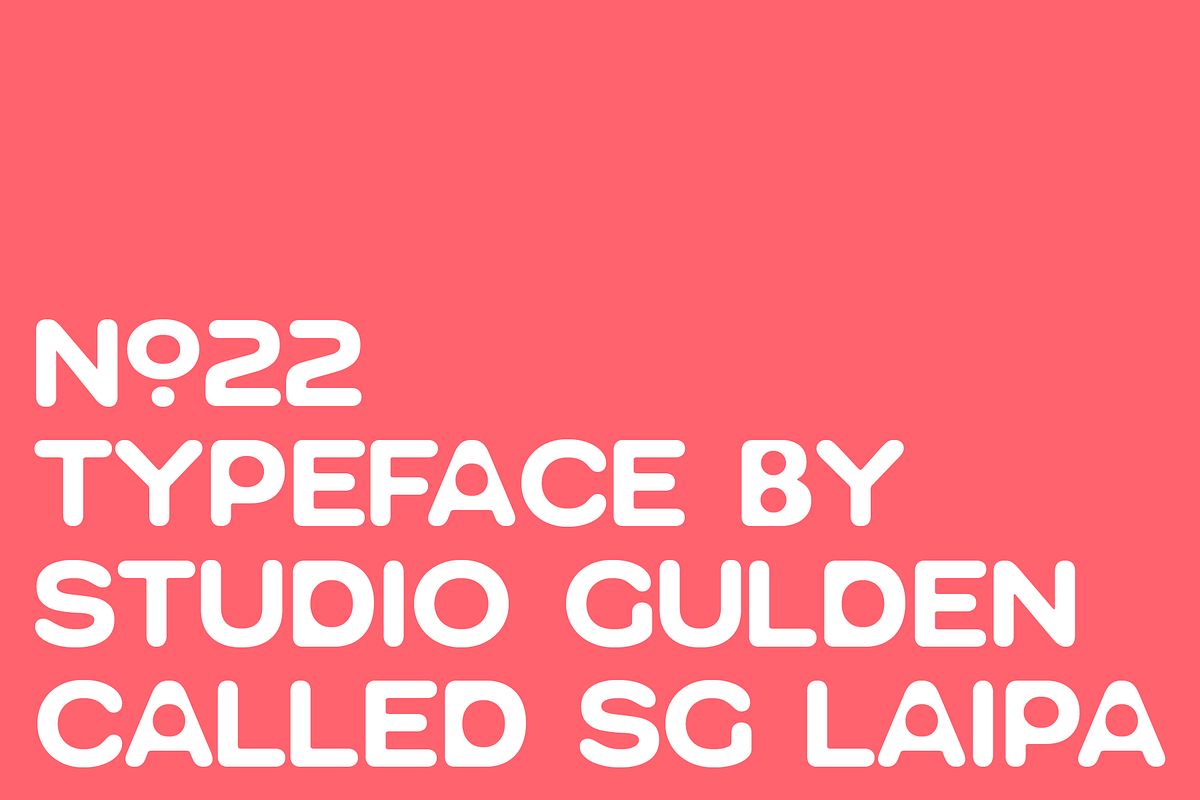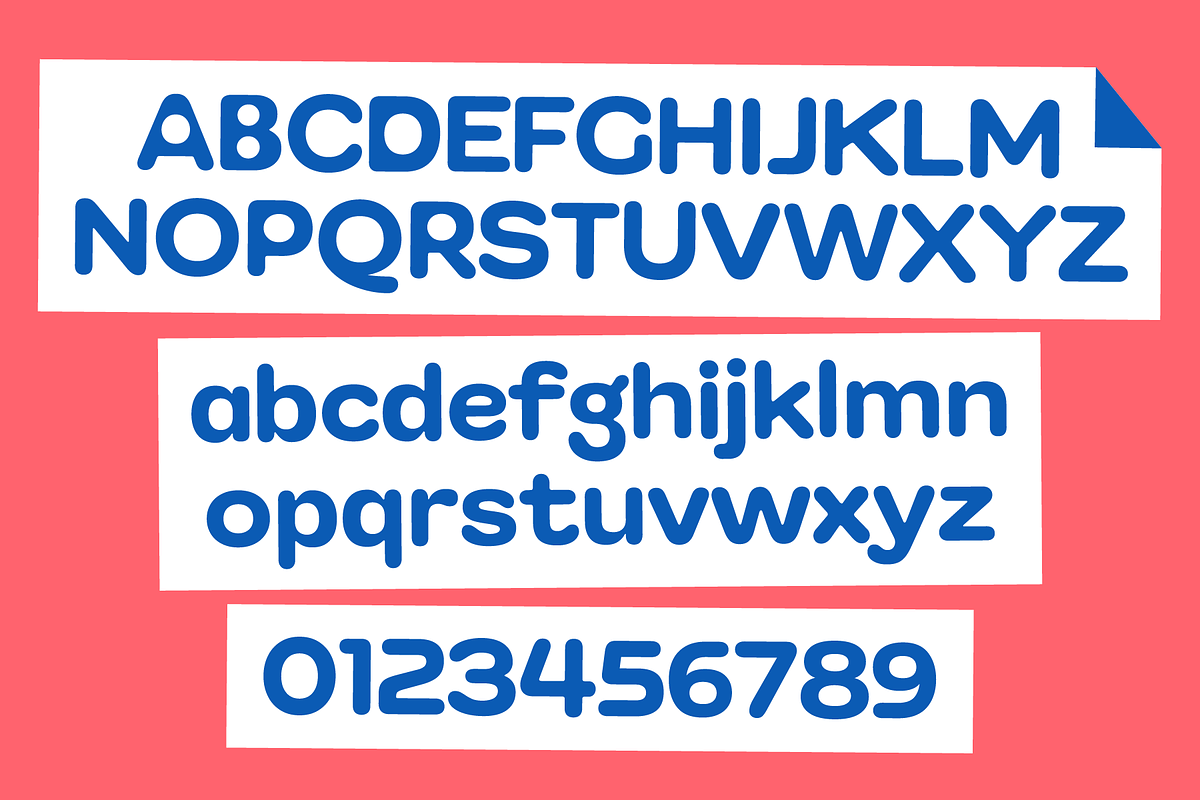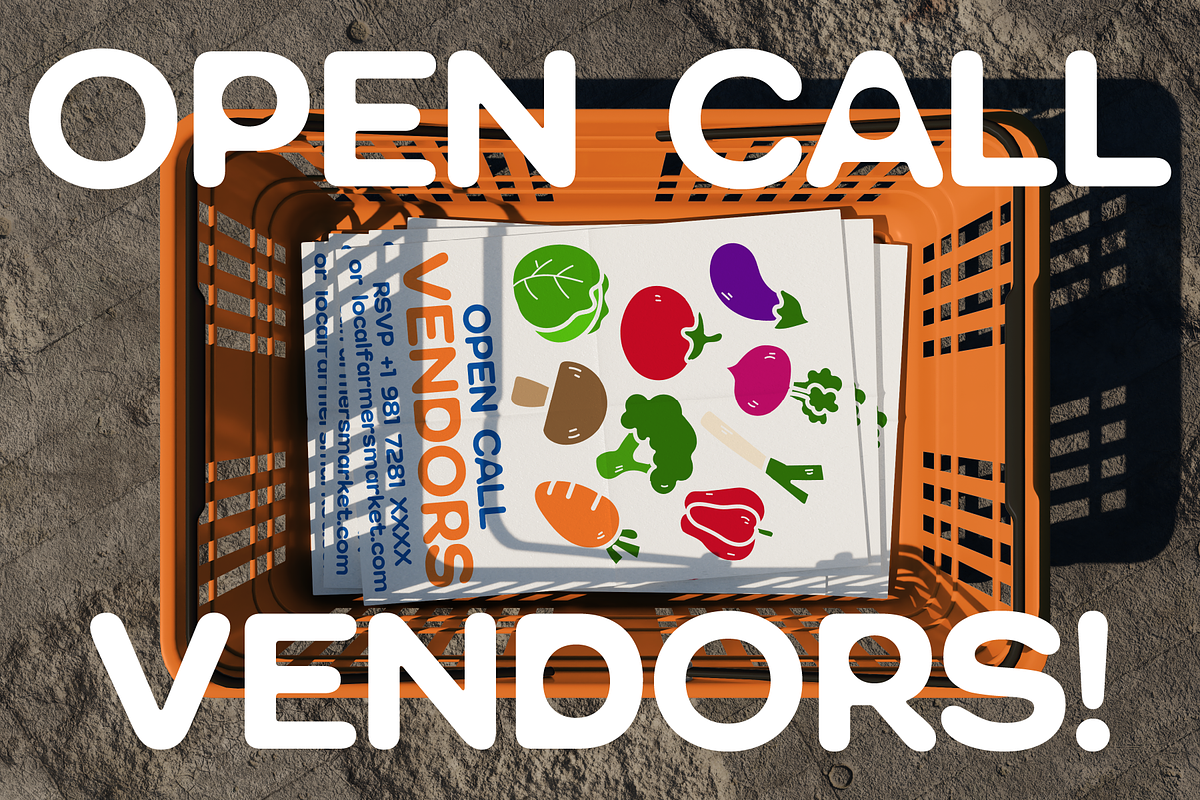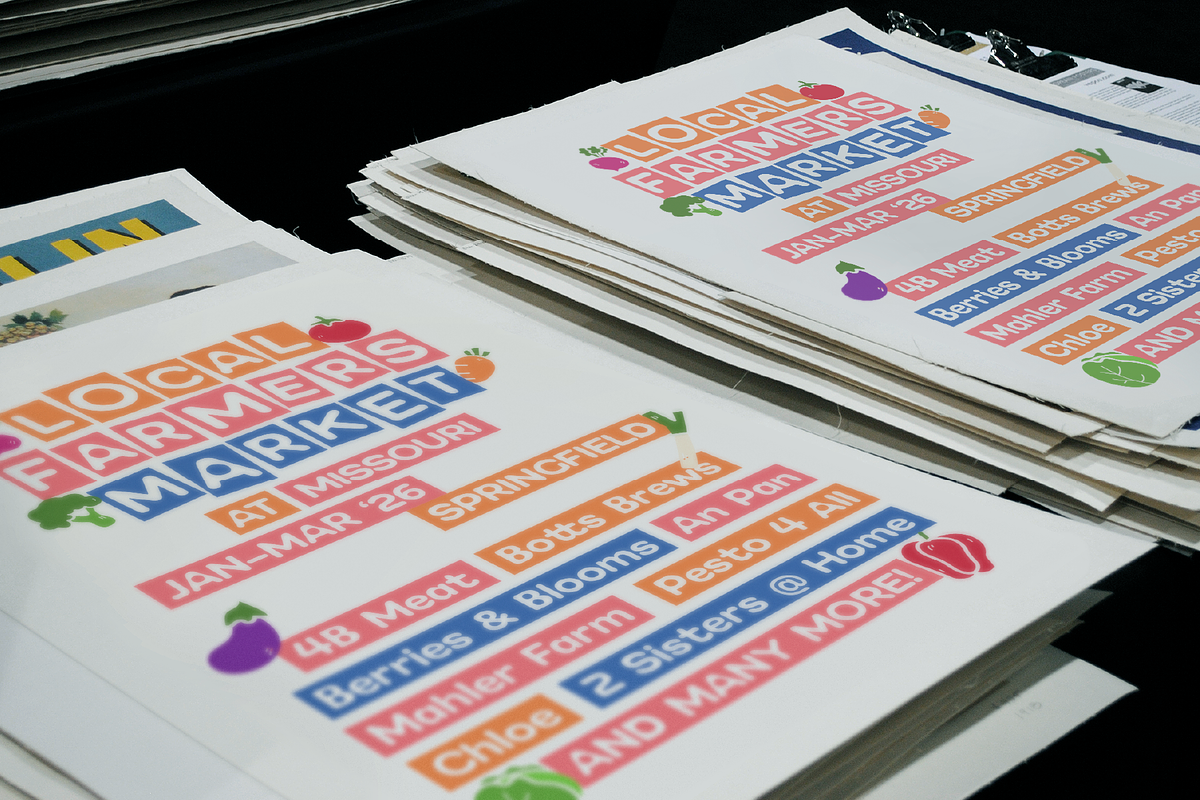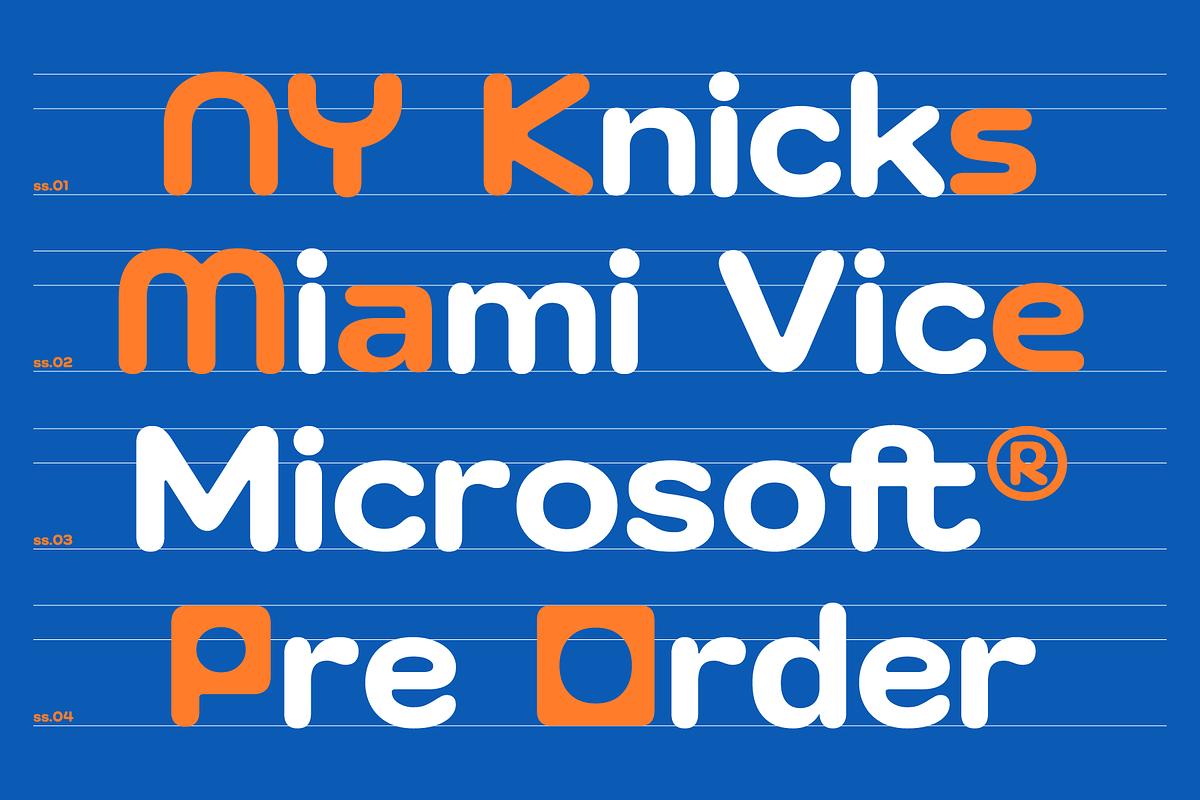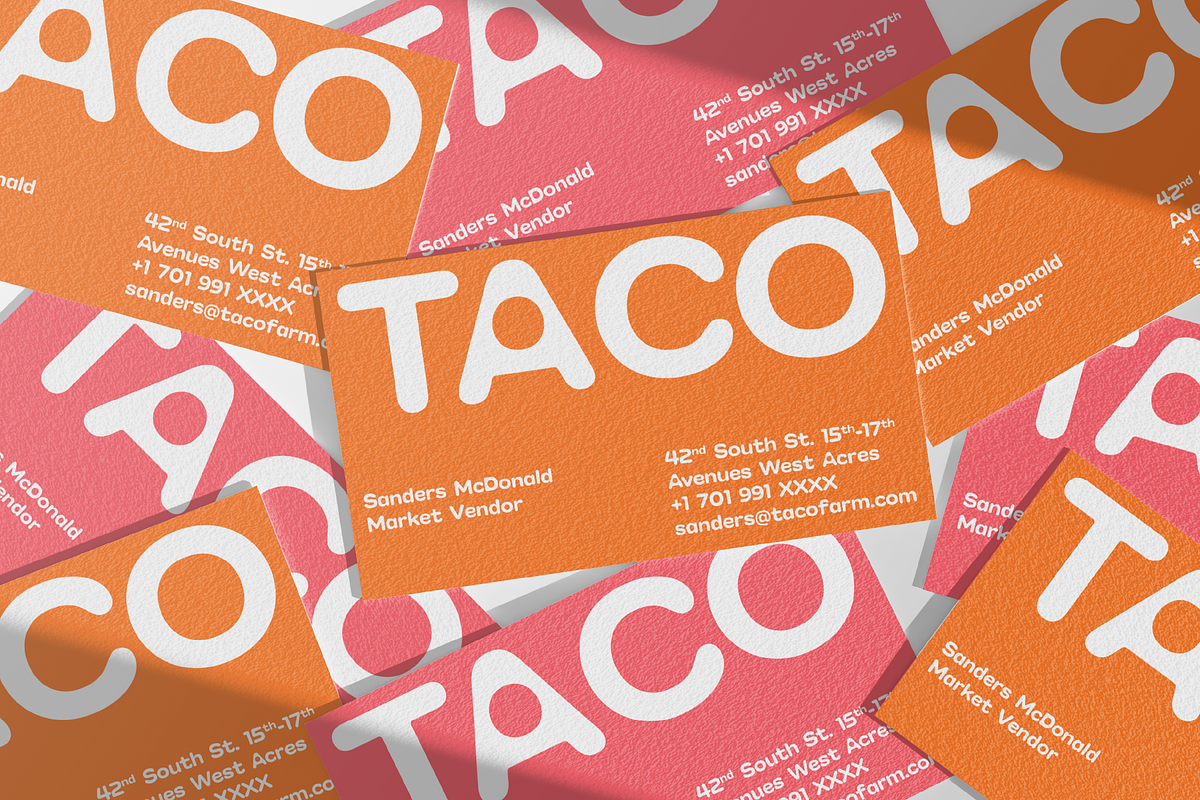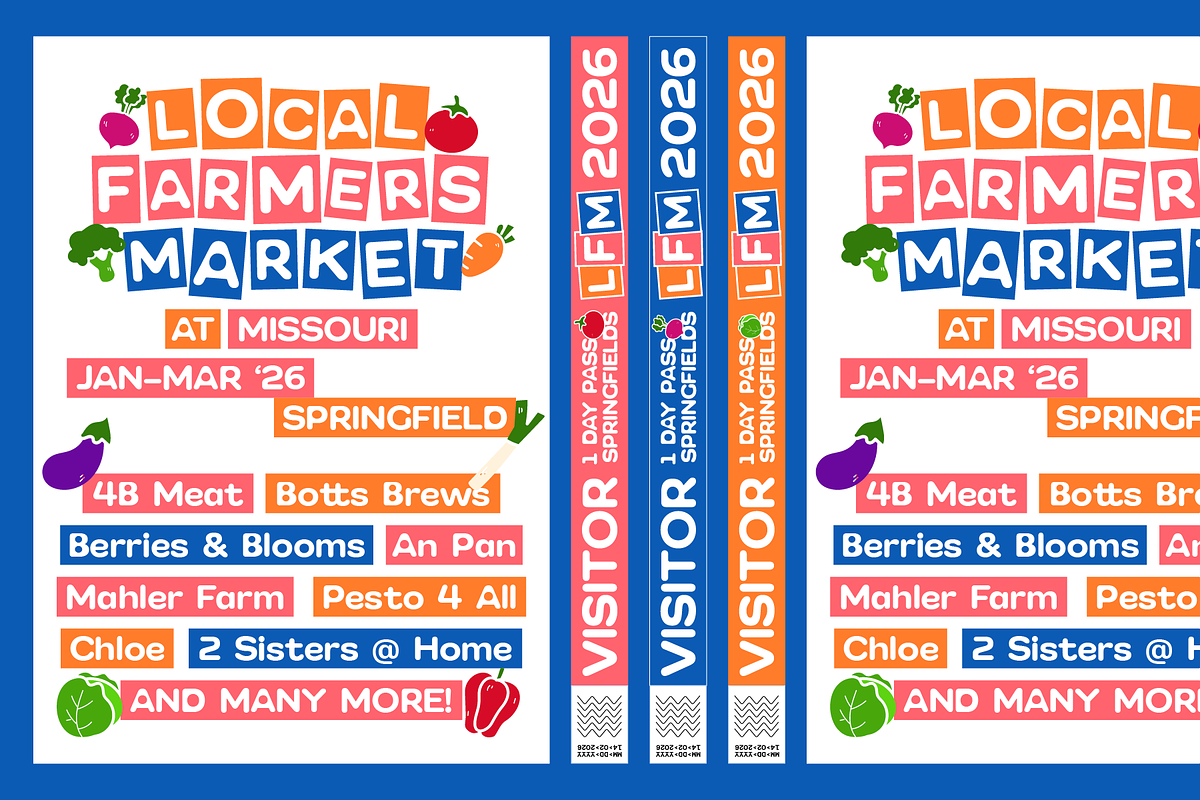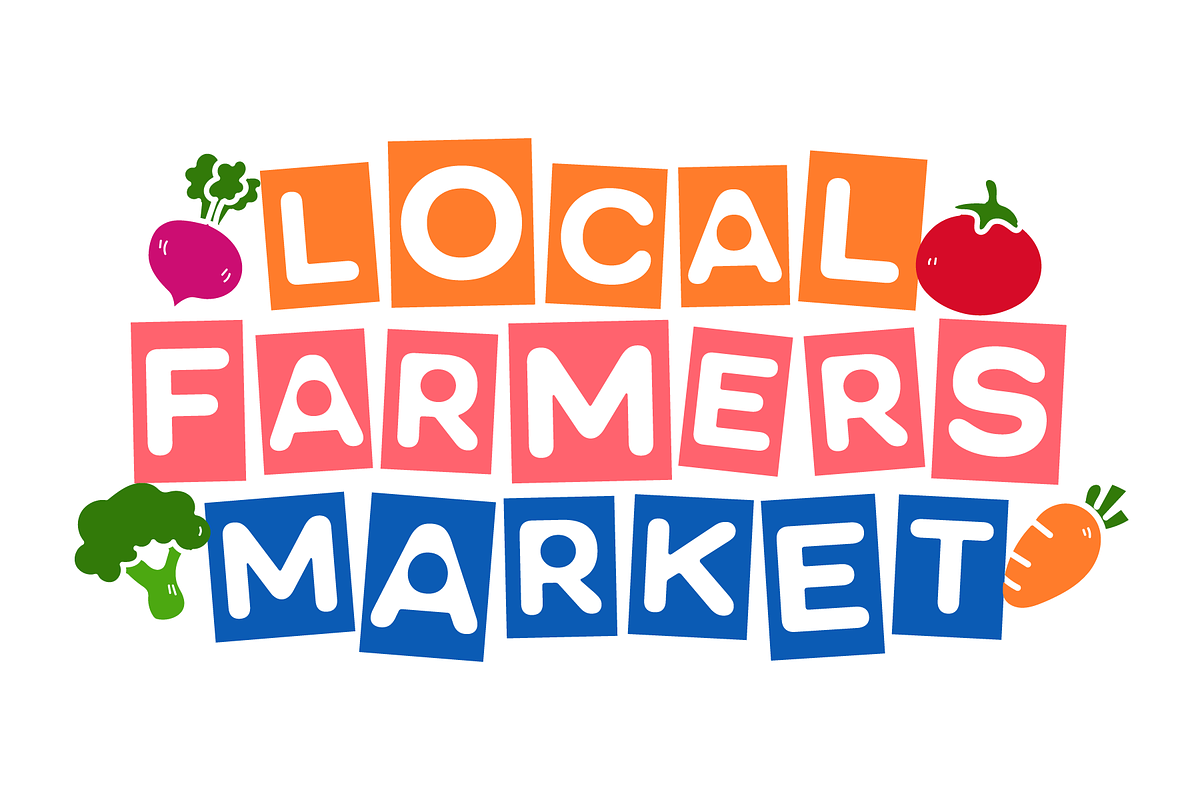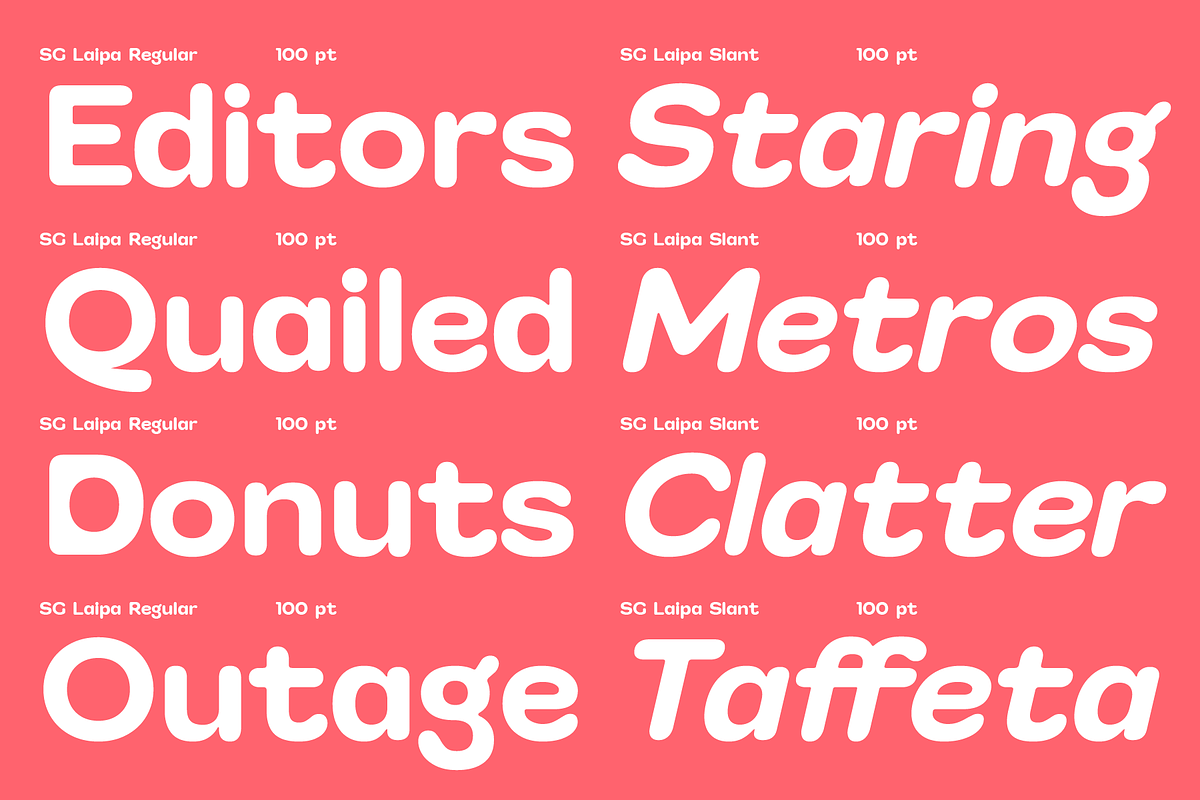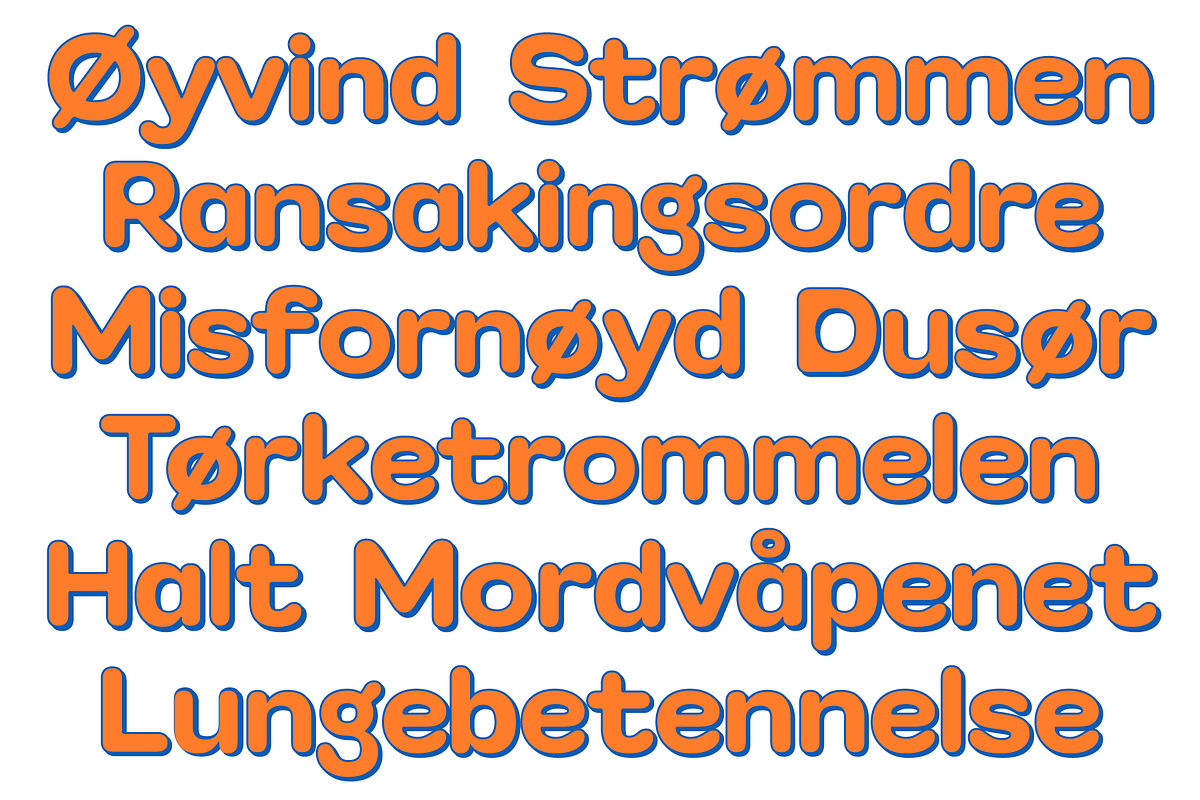
SG Laipa Soft Rounded
Meet SG Laipa, a contemporary soft rounded typeface that perfectly bridges the gap between structured geometry and friendly warmth. Designed to instantly command attention while maintaining an approachable charm, SG Laipa brings a vibrant energy to any design system. With its generous glyph count and dynamic stylistic alternates, this typeface is a powerful, highly adaptive asset for creators who need their typography to speak with both clarity and distinct personality.
At its core, SG Laipa explores the balance between rigid geometric structures and organic, friendly softness. Each character features fluid, rounded terminals that temper its solid, high-impact architecture, resulting in a look that feels incredibly human yet precisely engineered. The typeface breaks away from traditional static forms by offering a wealth of interlocking ligatures, creative unicase integrations, and distinctive alternative glyphs—such as its uniquely stylized 'A', 'M', and 'Y'. Whether standing tall in its upright form or leaning forward with the urgent momentum of its Slanted style, SG Laipa conveys a mood that is modern, optimistic, and confidently expressive.
SG Laipa is an essential addition to the toolkit of branding professionals, packaging designers, and digital creators looking to stand out in a crowded market. Its heavy, high-contrast presence makes it an absolute powerhouse for display environments, including bold editorial headers, eye-catching event posters, tech-forward merchandise, and standout logo designs. Beyond its expressive potential, its clean geometric foundations ensure excellent legibility across UI/UX touchpoints, social media graphics, and contemporary signage. From indie projects to massive corporate rebrands, SG Laipa scales effortlessly from digital screens to physical print.
2 Dynamic Styles: Available in crisp Regular and fast-paced Slanted variants to match your layout's energy.
Massive Character Set: 881 meticulously crafted glyphs per style, ensuring ultimate typographic flexibility.
Expressive Alternates & Unicase Characters: Packed with playful alternative letterforms to create custom, logo-like compositions on the fly.
Creative Ligatures: Custom interlocking letter combinations designed to add seamless rhythm to your headlines.
Enclosed & Circled Numerals: Built-in stylistic number sets perfect for technical data, conceptual layouts, and badges.
Extended Language Support: Complete coverage for broad Latin-based languages, enabling global communication.